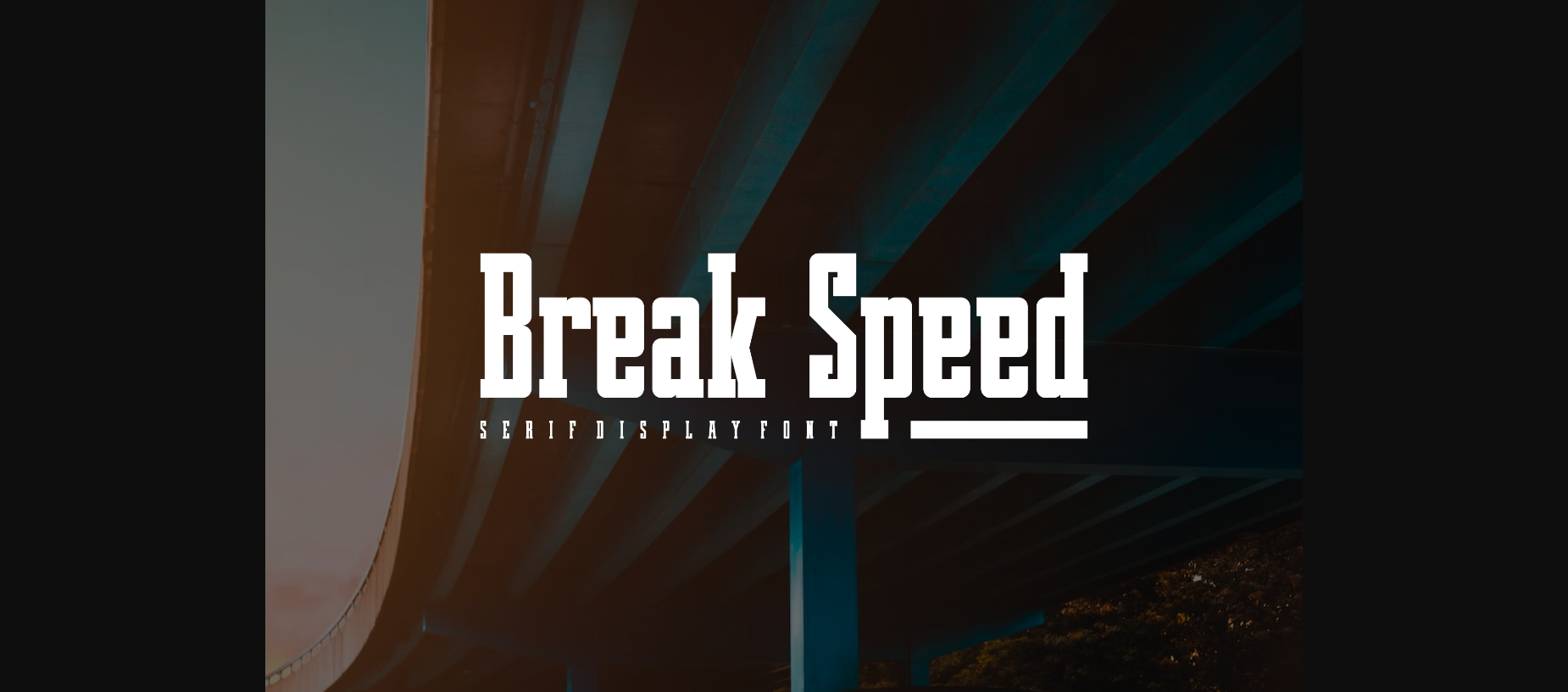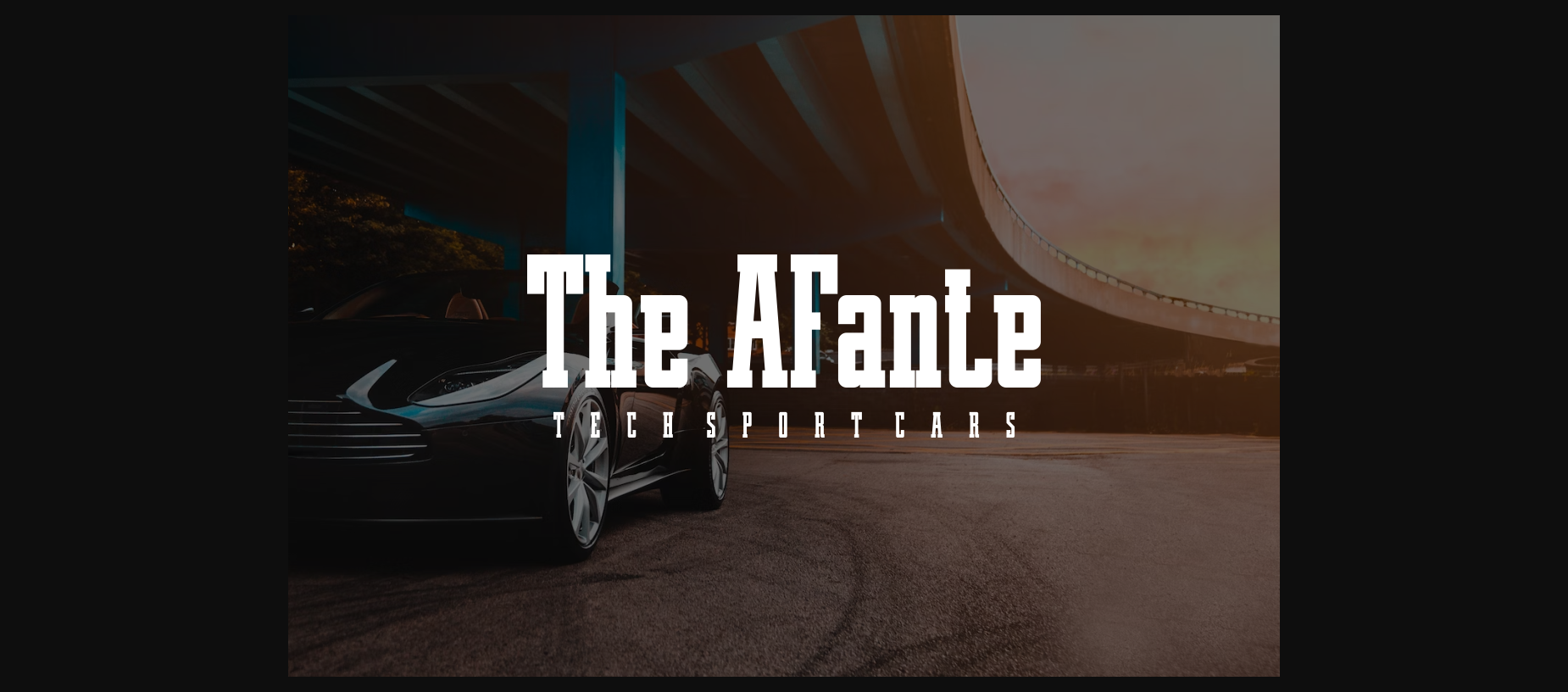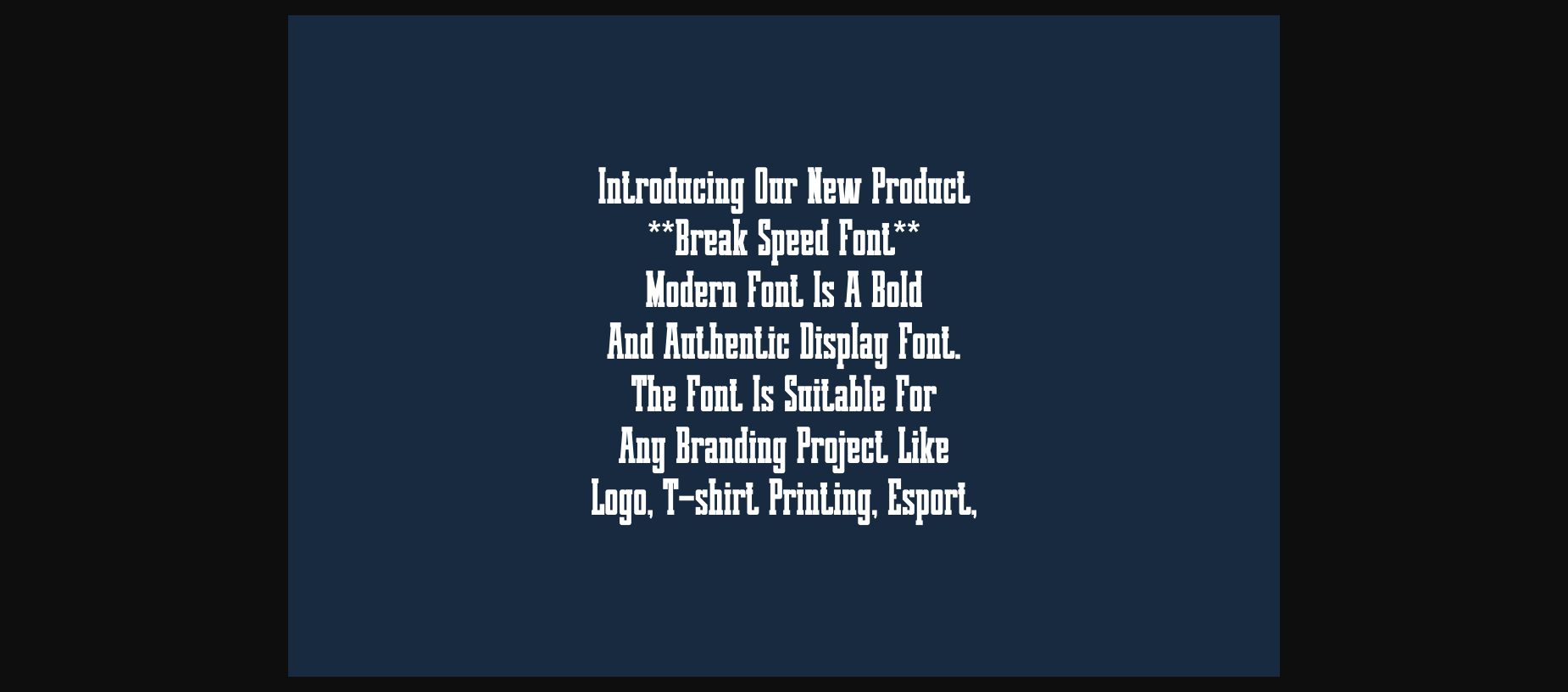
About Breakspeed Font
Introducing our new product **BreakSpeed Font** – Modern Font
**BreakSpeed Font** – Modern Font is a bold and authentic display font. The font is suitable for any branding project like logo, esports, and many more. outstanding in a wide range of contexts.